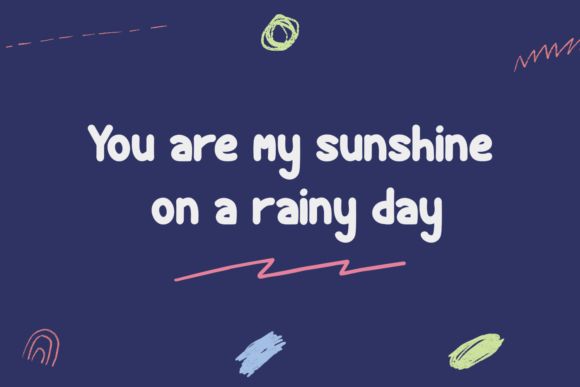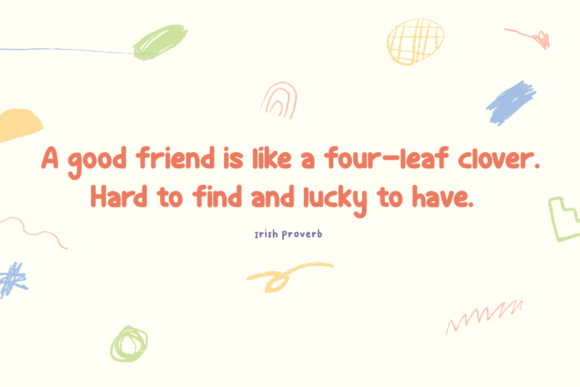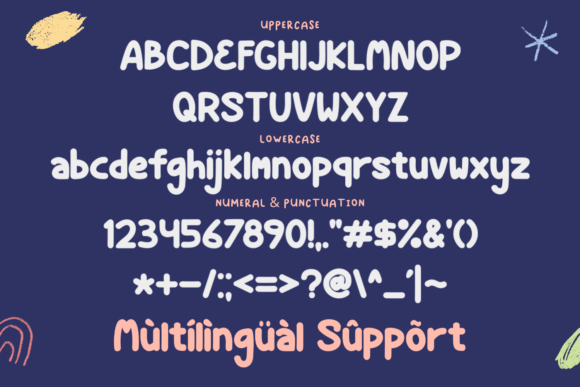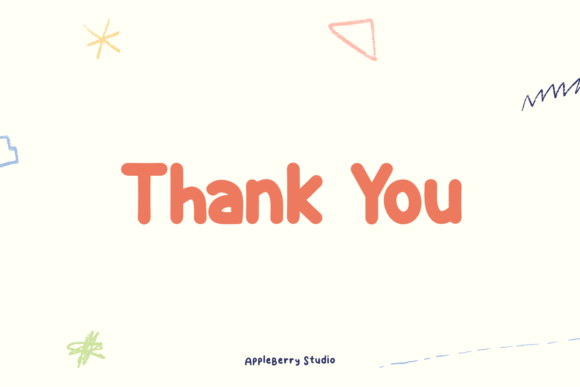
Baby Bear Font: The Perfect Choice for Children’s Activities and School Projects
Baby Bear Font is a delightful and charming display font that embodies playfulness and authenticity, making it an ideal choice for children’s activities and school projects. This fun and jolly font is sure to capture the imagination of kids and designers alike, adding a touch of whimsy and charm to any project.
What Makes Baby Bear Font So Special?
Baby Bear Font is a unique and eye-catching font that stands out from the crowd. Its playful and carefree design makes it perfect for use in children’s books, educational materials, and craft projects. The font’s charming and endearing appearance is sure to appeal to kids and parents alike, making it an excellent choice for any project aimed at a young audience.
Key Features of Baby Bear Font
- Playful and Fun Design: Baby Bear Font features a playful and fun design that is sure to capture the imagination of kids and designers alike.
- Charming and Whimsical: The font’s charming and whimsical appearance makes it perfect for use in children’s activities and school projects.
- Authentic and Unique: Baby Bear Font is an authentic and unique font that stands out from the crowd, making it an excellent choice for designers and crafters looking for something special.
- Display Font: Baby Bear Font is a display font, making it perfect for use in headings, titles, and other display text.
Uses for Baby Bear Font
Baby Bear Font is a versatile font that can be used in a variety of projects, including:
- Children’s Books: Baby Bear Font is perfect for use in children’s books, adding a touch of whimsy and charm to the text.
- Educational Materials: The font’s playful and carefree design makes it an excellent choice for educational materials, such as worksheets, activity sheets, and educational posters.
- Craft Projects: Baby Bear Font is a great choice for craft projects, such as scrapbooking, card making, and other paper crafts.
- School Projects: The font’s charming and endearing appearance makes it perfect for use in school projects, such as presentations, posters, and reports.
Tips for Using Baby Bear Font
Here are a few tips for using Baby Bear Font in your projects:
- Use it in Headings and Titles: Baby Bear Font is a display font, making it perfect for use in headings and titles.
- Pair it with Other Fonts: Baby Bear Font can be paired with other fonts to create a unique and eye-catching look.
- Use it in Color: The font’s playful and whimsical appearance is enhanced when used in color.
- Experiment with Different Sizes: Baby Bear Font can be used in a variety of sizes, from small to large, to create a unique and eye-catching look.
Baby Bear Font is a fun, jolly, and incredibly charming display font that is perfect for use in children’s activities and school projects. Its playful and carefree design makes it an excellent choice for designers and crafters looking for a unique and eye-catching font. With its charming and whimsical appearance, Baby Bear Font is sure to capture the imagination of kids and designers alike, adding a touch of whimsy and charm to any project.